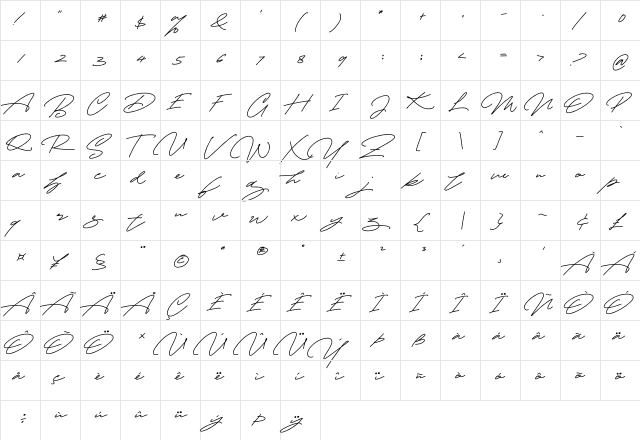
Cynthia Blooms Regular
| Foundry | Dirtyline Studio |
| Designer | Hendra Maulia |
Design Context for Cynthia Blooms Typeface
Cynthia Blooms is a composed and adaptable typeface that performs quietly and consistently across a wide range of design contexts.